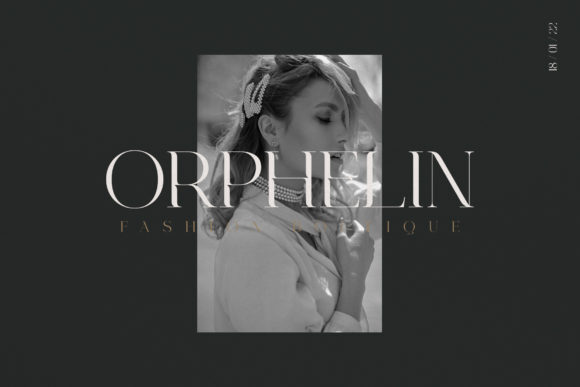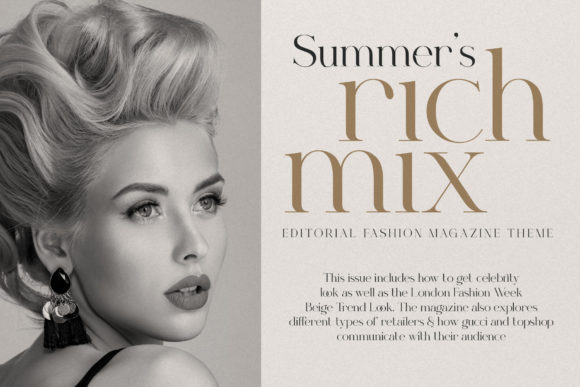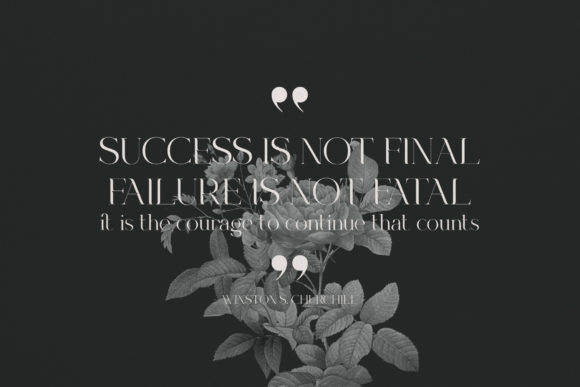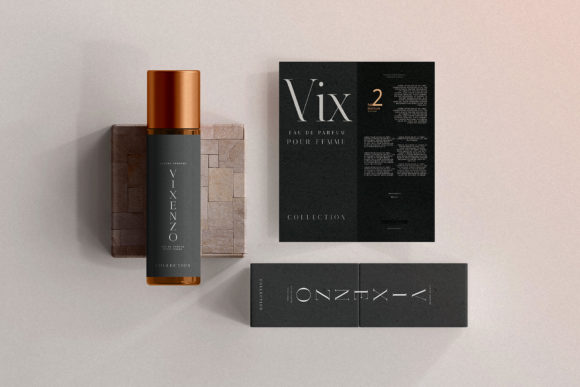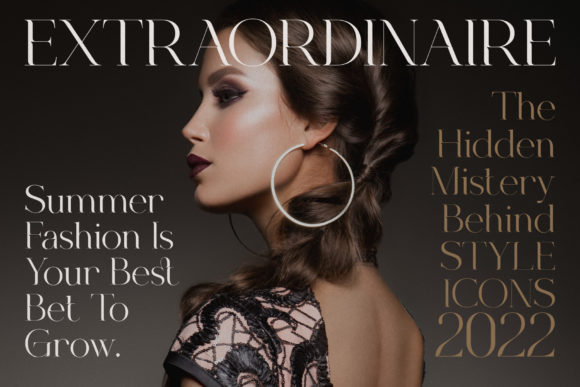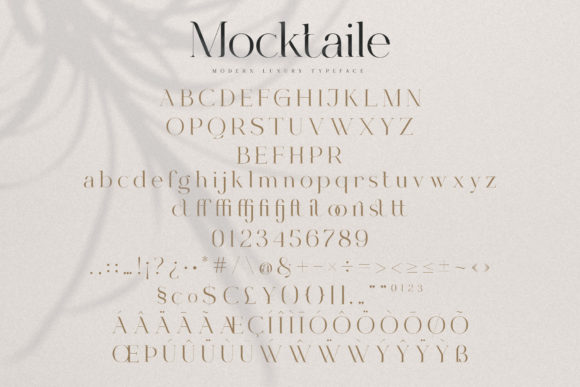
Introduction to Mocktaile Font
Have you ever stared at a blank canvas, desperate for inspiration to strike? It’s a familiar feeling for many creatives, but one that’s often broken by the discovery of a unique design resource. For designers seeking to elevate their projects, a distinctive font can be the missing piece that sets their work apart. Enter the Mocktaile Font, a stylish and delicate serif font that’s poised to capture the attention of crafty minds.
With its charming aesthetic and versatility, the Mocktaile Font is an invaluable asset for designers of all levels. Whether you’re crafting letterheads, designing stationery, or working on a creative project that requires a touch of elegance, this font is sure to deliver. Plus, its high quality design makes it an excellent choice for a variety of applications, from digital displays with transparent backgrounds to print materials.
Key Features of Mocktaile Font
- Mocktaile Font is available in a single size, making it easy to use across various design applications
- Designed with high resolution in mind, making it perfect for use in print and digital media
Honest Review: Mocktaile Font
As a designer, I’m always on the lookout for high-quality design resources to elevate my creative projects. Recently, I came across the Mocktaile Font, and I’m excited to share my honest review.
- ✨ Unique and stylish design: The Mocktaile Font boasts a distinctive and modern aesthetic that’s perfect for making a statement in your designs.
- ⚠️ Limited character set: The Mocktaile Font only includes a limited character set, which may not be suitable for longer texts or extensive use in a design project.
- ⚠️ Transparent background: While the font itself is great, I found that using it on a transparent background can sometimes make it difficult to read, especially in designs with complex layouts.
Overall, I’m impressed with the Mocktaile Font’s unique design and high-quality file. While it may have some limitations, I believe it’s a valuable addition to any designer’s toolkit, especially for creative projects requiring a stylish and modern touch.
Mocktaile Font: A Comprehensive Guide
The Mocktaile Font is a high-quality, versatile font that can be used in a variety of creative projects. It is available for free download, making it a valuable design resource for designers and artists.
The Mocktaile Font is commonly used in a variety of creative projects, including:
- Documents
Tips for Getting the Most Out of the Mocktaile Font
To get the most out of the Mocktaile Font, follow these tips:
- Combine the Mocktaile Font with other design elements, such as images and graphics
- Use the font to create a consistent brand identity
Is the Mocktaile Font a high-quality design resource, suitable for professional design projects?
Yes, the Mocktaile Font is a high-quality design resource, suitable for professional design projects. The font has been carefully designed to provide a unique and stylish look for your design projects. With its high-quality design and versatility, the Mocktaile Font is an excellent choice for designers looking to add a touch of creativity to their projects.